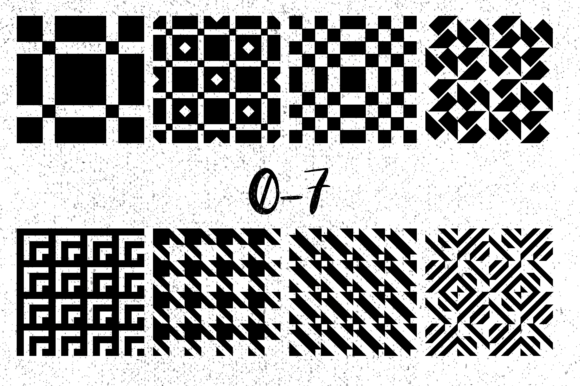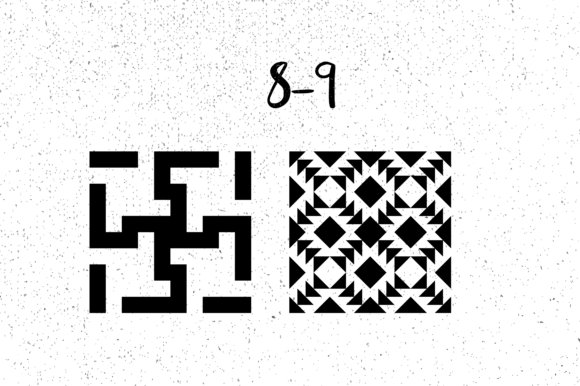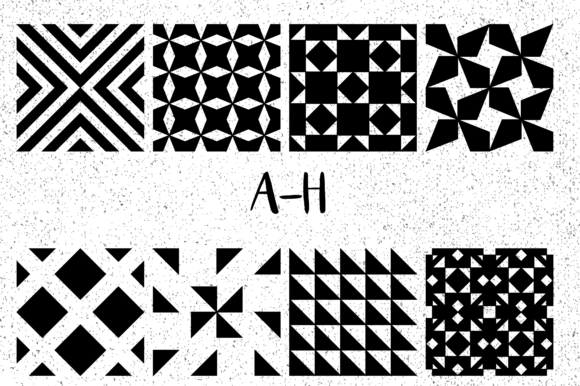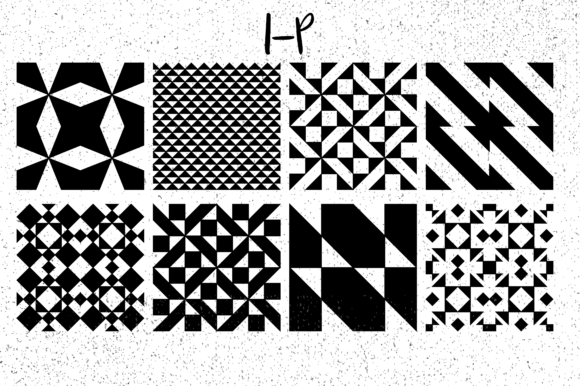
ABOUT GMETRIC FONT
“Gmetric” is a unique font that allows you to effortlessly create geometric patterns. By simply typing any letter or number repeatedly without spaces, you can generate intricate and eye-catching designs.
This font simplifies the pattern creation process, making it accessible to everyone. Whether you’re working on graphic design projects, textile patterns, or any other creative endeavor that requires geometric patterns, “Gmetric” can be a valuable tool.
The repetitive use of letters or numbers in this font results in visually appealing patterns that can be customized to suit your preferences. Experiment with different characters and arrangements to create diverse and engaging designs.
Unlock your creativity and explore the endless possibilities of pattern creation with “Gmetric.” With its ease of use and geometric aesthetics, this font will surely inspire you to create stunning and mesmerizing patterns for your projects.